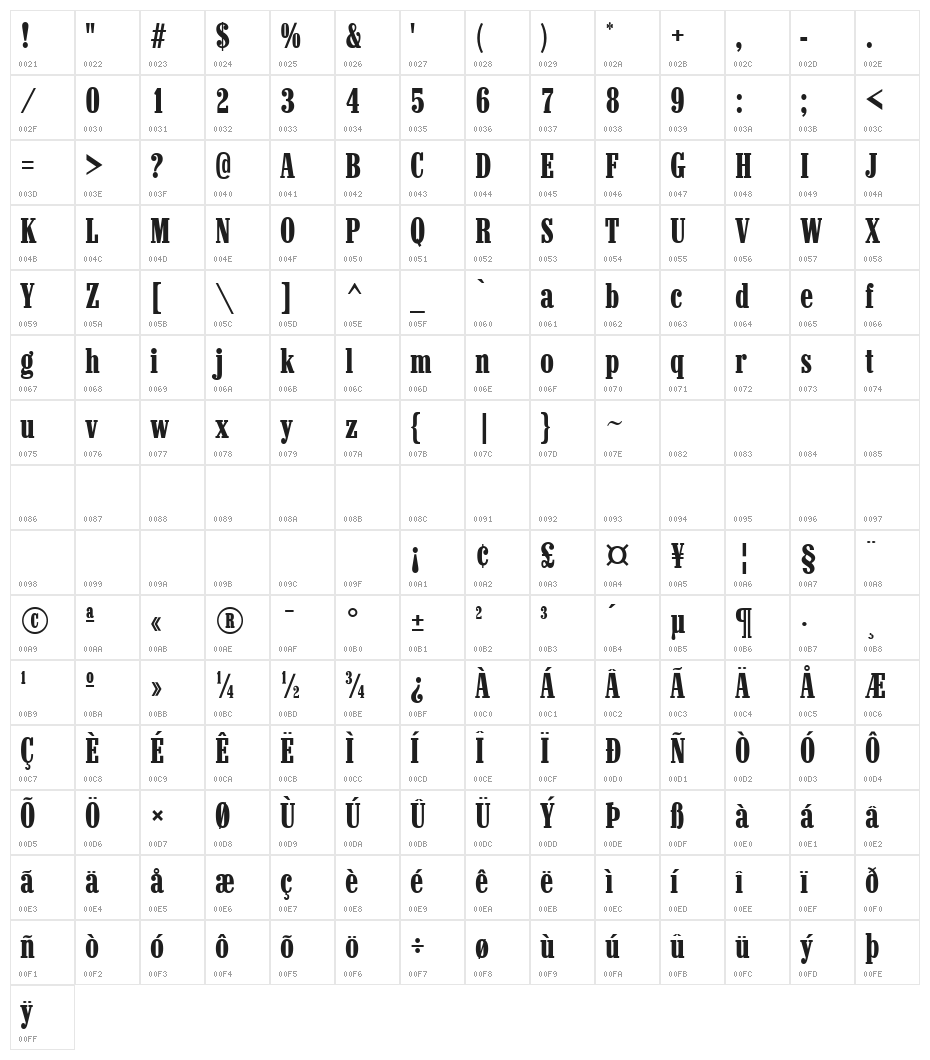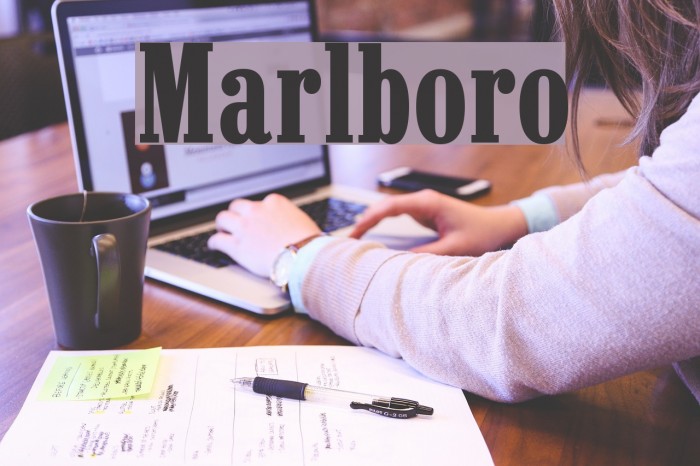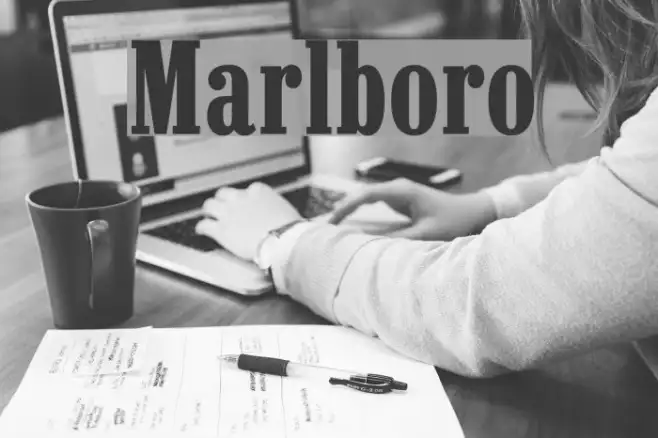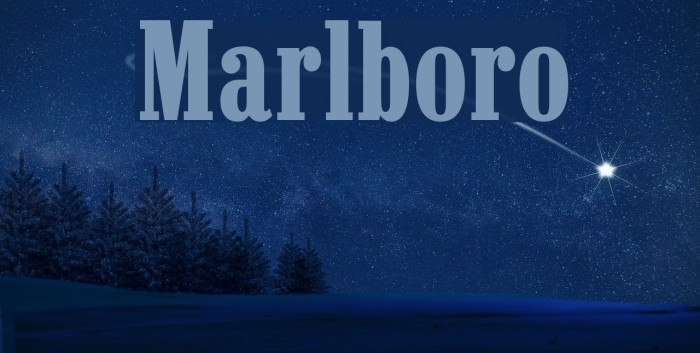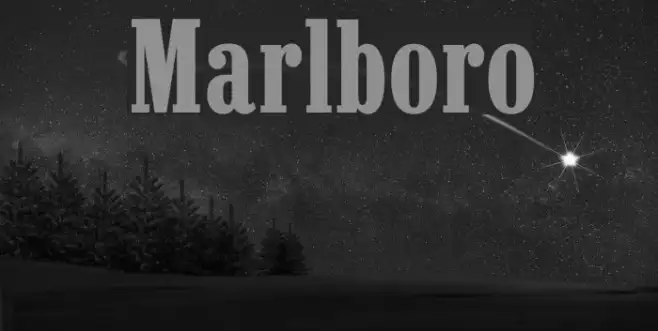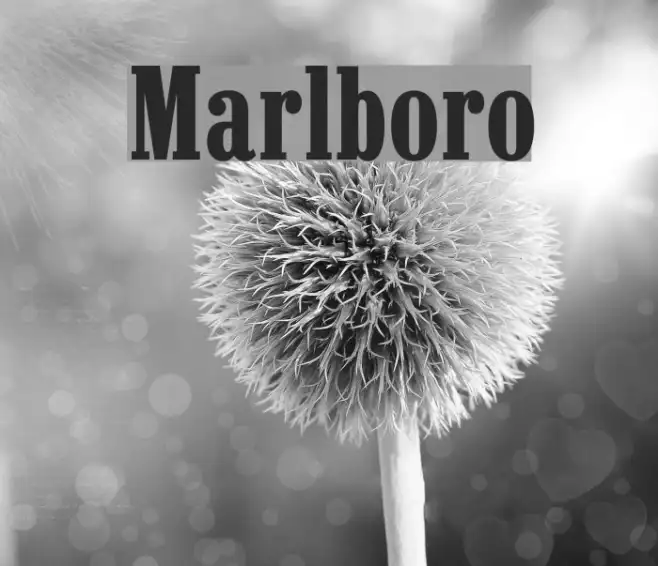
Marlboro Font
Marlboro Description
This font features bold, strong serifs with a classic and authoritative feel. The uppercase letters are tall and commanding, while the lowercase letters maintain a consistent weight and structure. The numerals are clear and easily readable, matching the overall boldness of the alphabet. Special characters are distinct and well-defined, adding to the font's versatility. The font's design is reminiscent of traditional newspaper headlines, offering a sense of reliability and strength. Its bold strokes and high contrast make it ideal for impactful statements.
| Proposed Projects | Ideal for branding, headlines, posters, and any project requiring a strong, authoritative presence. |